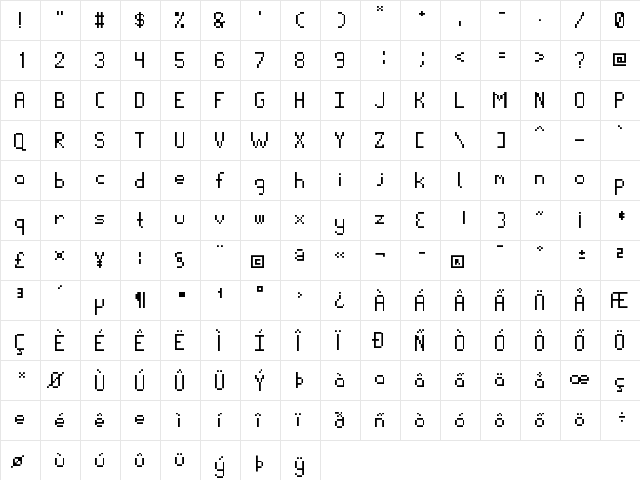
Grestin Regular
Design Context for Grestin Typeface
Grestin takes a measured approach to typography — its balanced proportions and neutral character make it a reliable workhorse for both digital and print work.